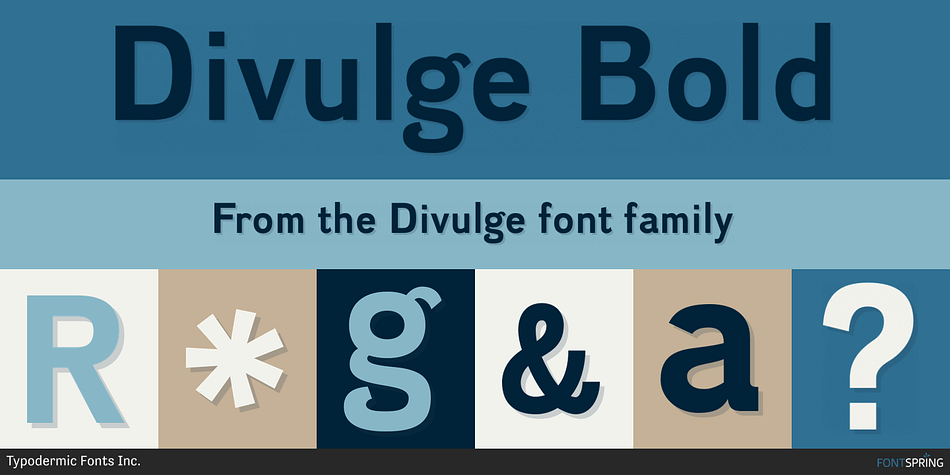
Divulge Bold
Divulge is a sans serif font family. This typeface has twelve styles and was published by Typodermic Fonts Inc.
Welcome to the world of Divulge—a modern grotesque that echoes the refined beauty of nineteenth and early twentieth-century sans-serif metal type. With its austere and nuanced voice, Divulge exudes an old-fashioned charm that feels both familiar and fresh.
In a world of cookie-cutter fonts, Divulge is a standout. Its idiosyncrasies are generously peppered throughout, giving your message a unique and memorable character. But fear not—these quirks are not distracting. Rather, they add just the right touch of personality without overwhelming your reader.
Divulge comes in three weights—light, regular, and bold—and two widths, allowing you to choose the perfect style for your message. And if you really want to make a statement, the elegant italics add a touch of class and sophistication.
So whether you’re crafting a classic, old-fashioned design or looking to add warmth and personality to a modern project, Divulge has you covered. Try it out today and see how it elevates your message to new heights.